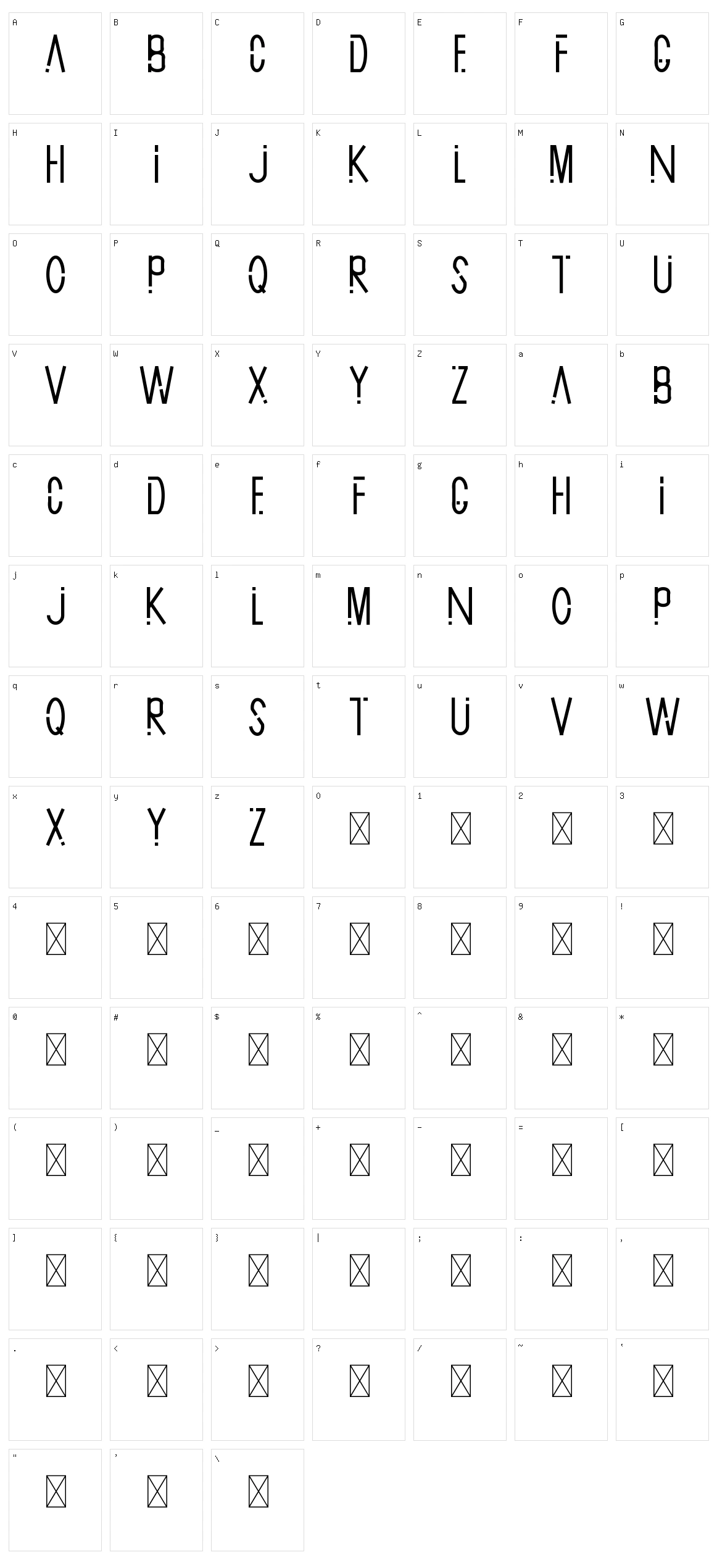
The free font During Dusk is carefully designed by Edric Studio, showcasing a thoughtful balance of creativity and usability and falls under the Distorted font style. When you download the ZIP file, it contains only 4.75 KB of font files, making it lightweight and quick to download. Please review the license details below to understand permitted usage and distribution rights. If license information is not available, we recommend using this font for personal projects only or contacting the author directly for commercial usage permissions.